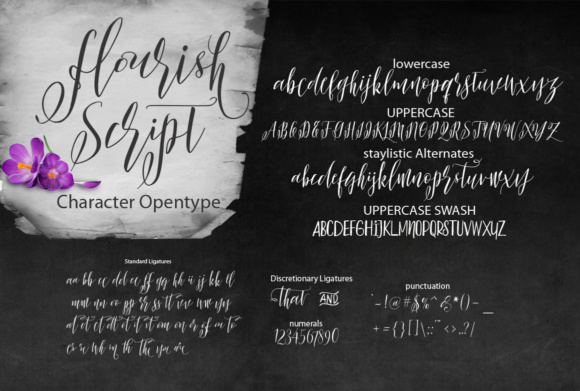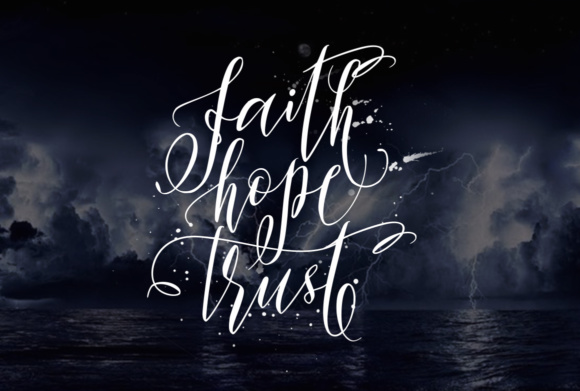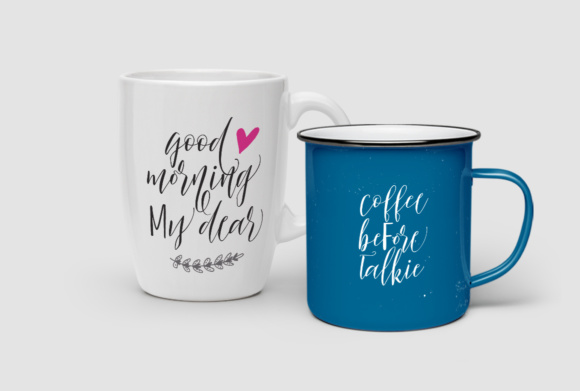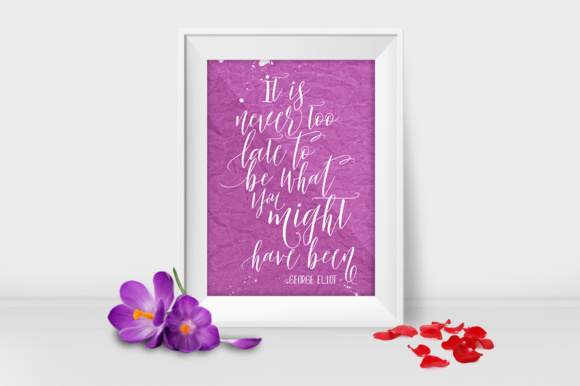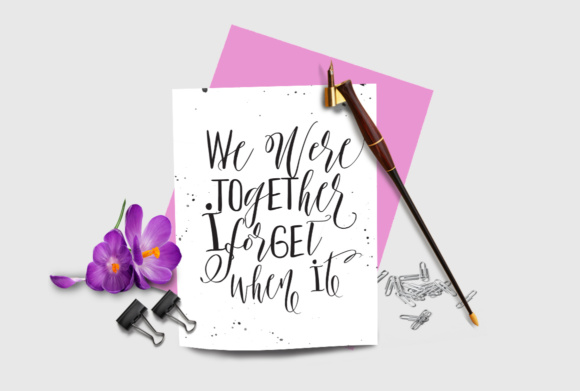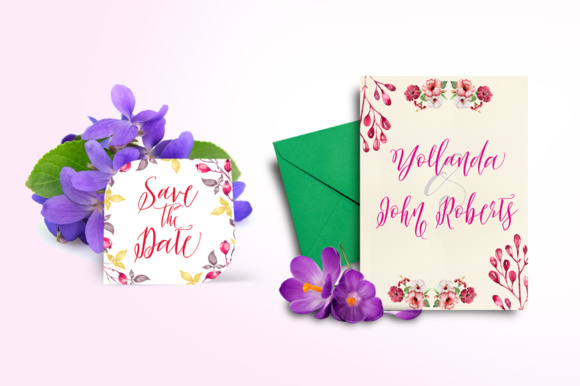
Introducing Flourish Font: Elevate Your Design Projects with Elegance
Are you tired of using the same old fonts for your design projects? Do you want to add a touch of elegance and sophistication to your crafts? Look no further than Flourish Font, a stunning calligraphy font that makes customizing your type projects easier than ever!
What is Flourish Font?
Flourish Font is a beautiful calligraphy font designed to add a touch of charm and elegance to your designs. With its intricate and flowing lines, this font is perfect for crafters, designers, and anyone looking to create stunning visual projects. Whether you’re working on a wedding invitation, a logo, or a DIY craft, Flourish Font is the perfect choice.
Key Features of Flourish Font
- Elegant and Sophisticated: Flourish Font adds a touch of elegance and sophistication to your designs, making it perfect for high-end projects.
- Highly Customizable: With Flourish Font, you can easily customize your type projects to fit your unique style and needs.
- Easy to Use: This font is incredibly easy to use, even for those with limited design experience.
- Versatile: Flourish Font can be used for a wide range of projects, from wedding invitations to logos, and from DIY crafts to professional designs.
Benefits of Using Flourish Font
So, why choose Flourish Font for your design projects? Here are just a few benefits of using this stunning calligraphy font:
- Adds a Touch of Elegance: Flourish Font adds a touch of elegance and sophistication to your designs, making them stand out from the crowd.
- Increases Versatility: With Flourish Font, you can create a wide range of projects, from formal to informal, and from digital to print.
- Saves Time: This font is incredibly easy to use, saving you time and effort on your design projects.
- Improves Brand Image: By using Flourish Font, you can create professional-looking designs that reflect positively on your brand.
Tips and Tricks for Using Flourish Font
Here are a few tips and tricks to help you get the most out of Flourish Font:
- Experiment with Different Sizes: Try using Flourish Font in different sizes to add visual interest to your designs.
- Combine with Other Fonts: Combine Flourish Font with other fonts to create a unique and visually appealing design.
- Use on Different Backgrounds: Try using Flourish Font on different backgrounds to add contrast and visual interest.
| Font Name | Flourish Font |
| Author | joelmaker |